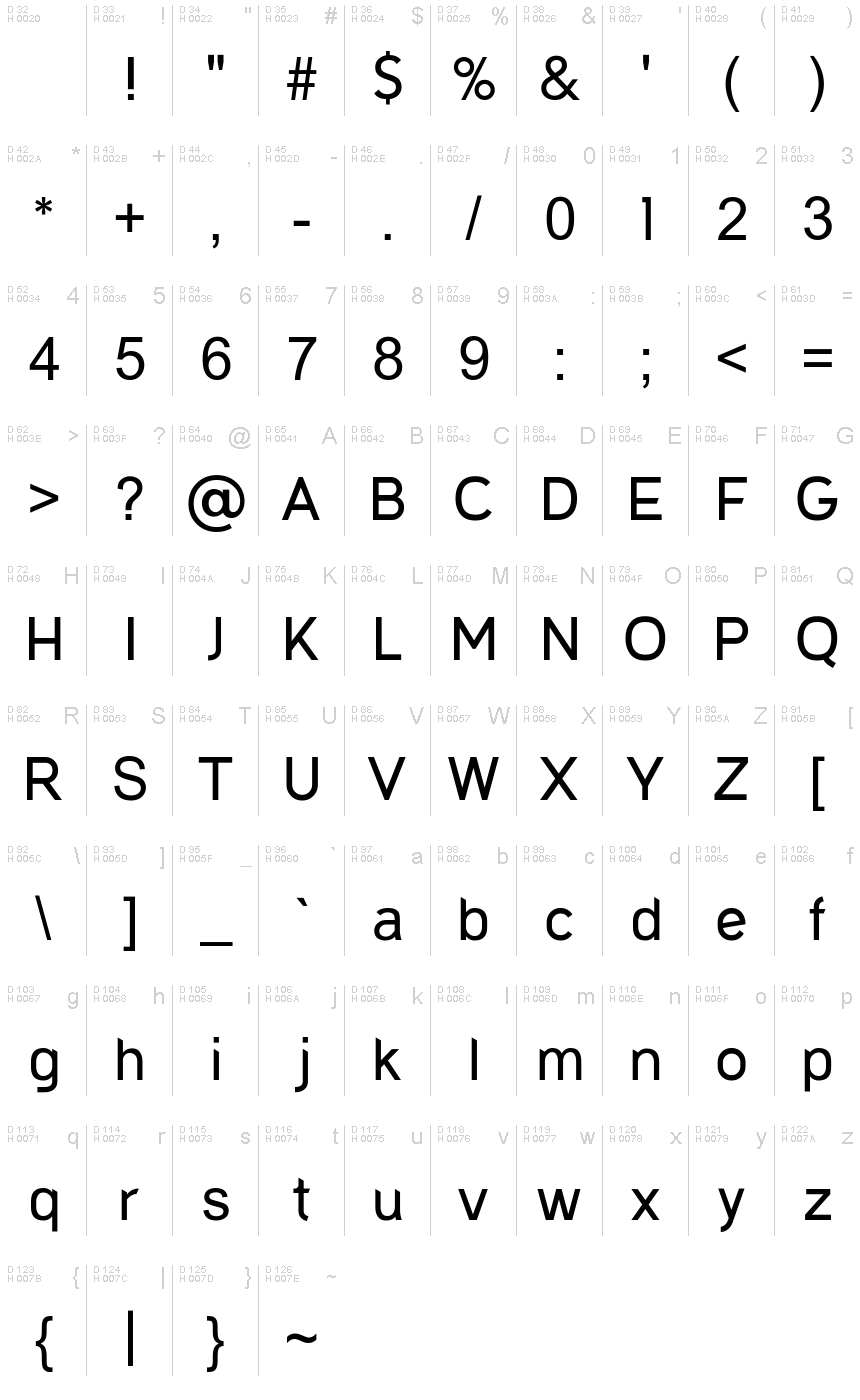
Romudiane
Romudiane font, crafted by UI Creative, is a striking sans serif that stands out with its bold and assertive style. Its clean and geometric design makes it perfect for projects needing a modern and professional touch. The distinctive letter shapes add a unique charm without sacrificing readability. Ideal for branding, headlines, or digital content, Romudiane captures attention effortlessly.